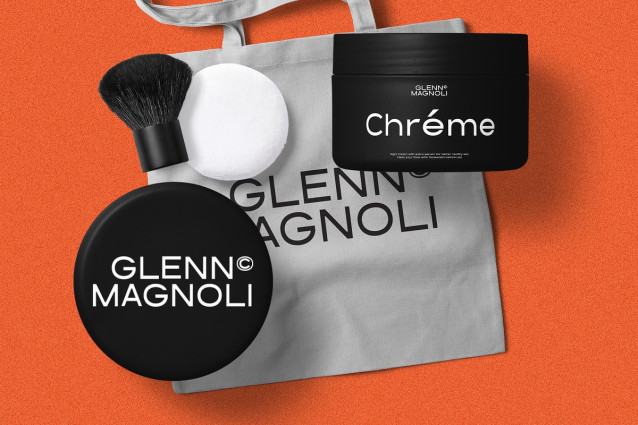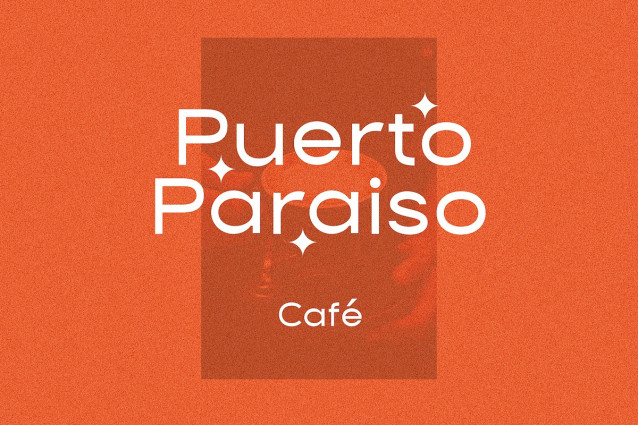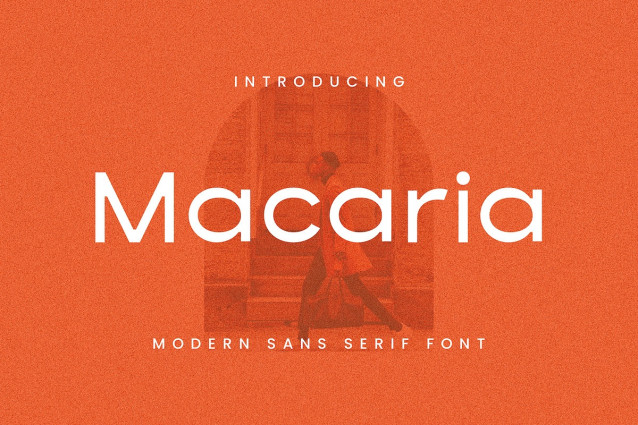
Macaria Font
Macaria Font is a minimal sans serif typeface that combines simplicity with elegance. Its clean design, balanced proportions, and high readability make it an exceptionally versatile choice for a wide range of design projects.
Macaria is suitable for use in a variety of design projects, such as titles, paragraphs, digital displays, editorial design, packaging, advertising, and web design, with its ability to give a fresh and elegant look.